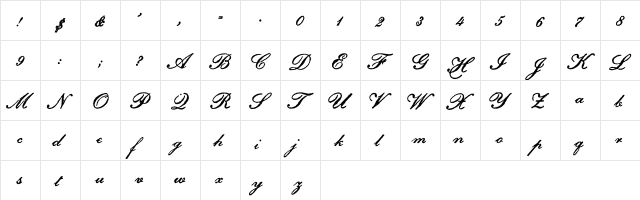
Archive Petite Script Regular
Design Context for Archive Petite Script Typeface
Archive Petite Script brings a calligraphic fluidity to the page — its connecting strokes and expressive curves give it an unmistakably human quality.
Font Pairing: Combine Archive Petite Script with a simple geometric sans for maximum contrast — the tension between flowing curves and clean structure is a classic typographic pairing.
Pro Tip: Pair Archive Petite Script with a clean sans-serif for supporting text. The contrast between fluid script and geometric structure creates an elegant typographic hierarchy.